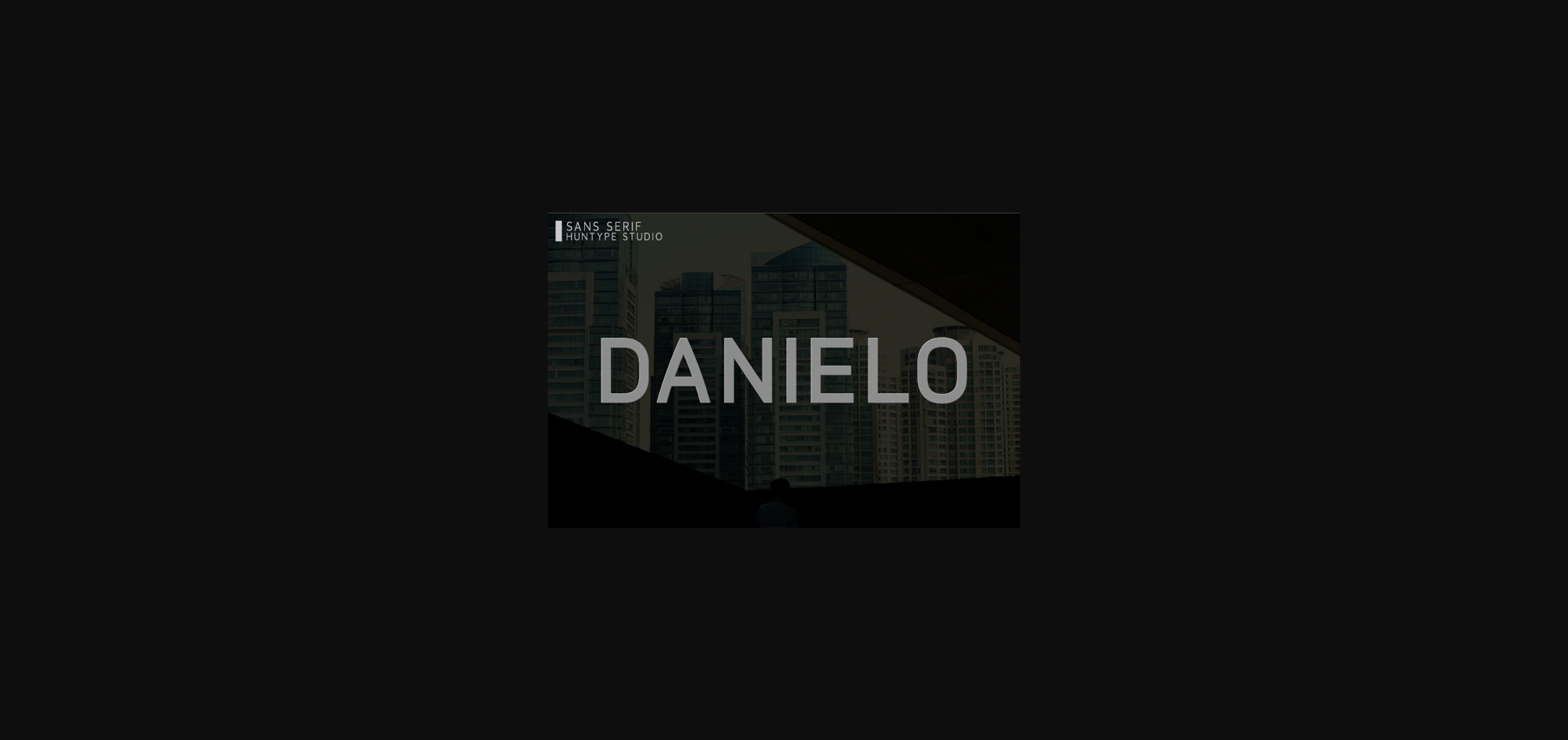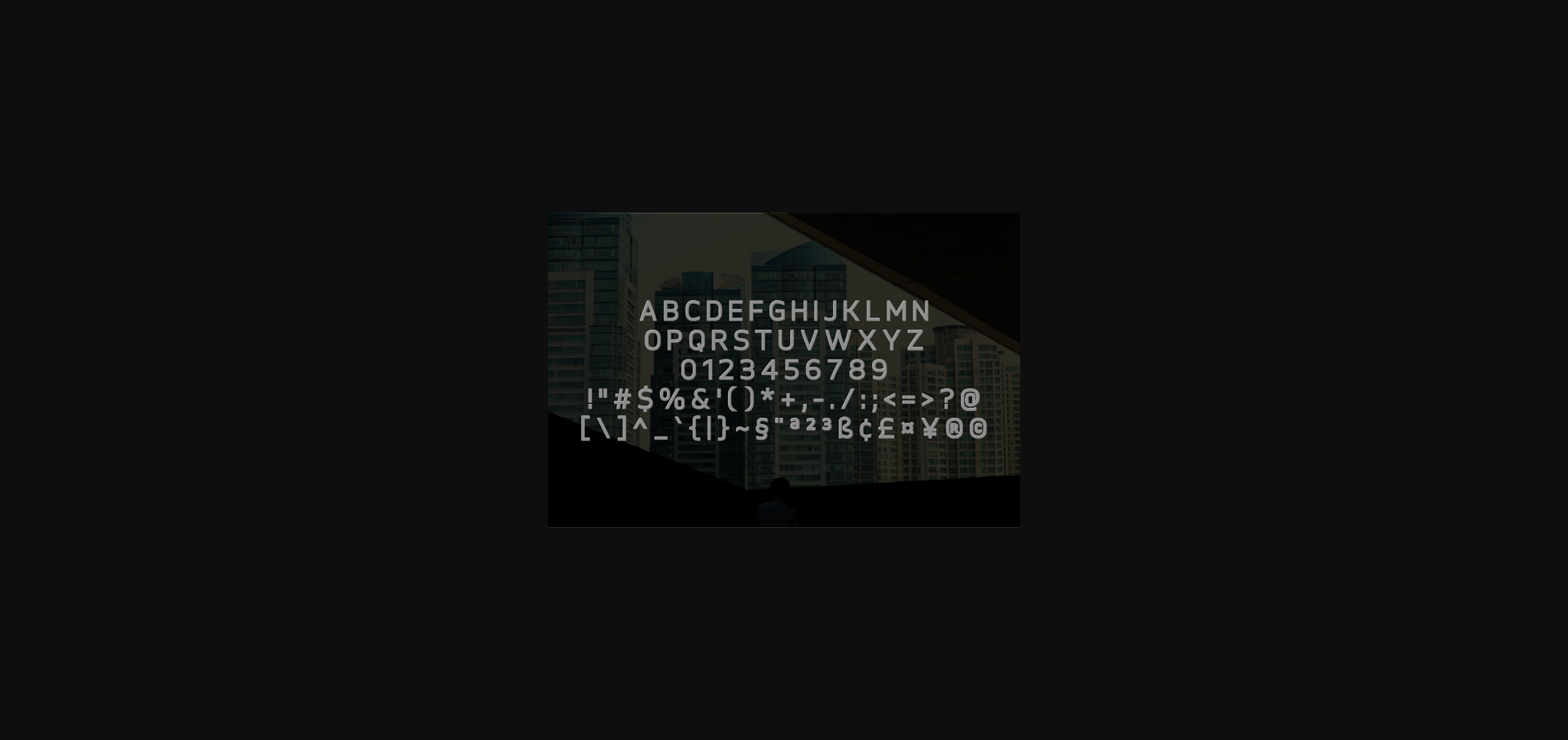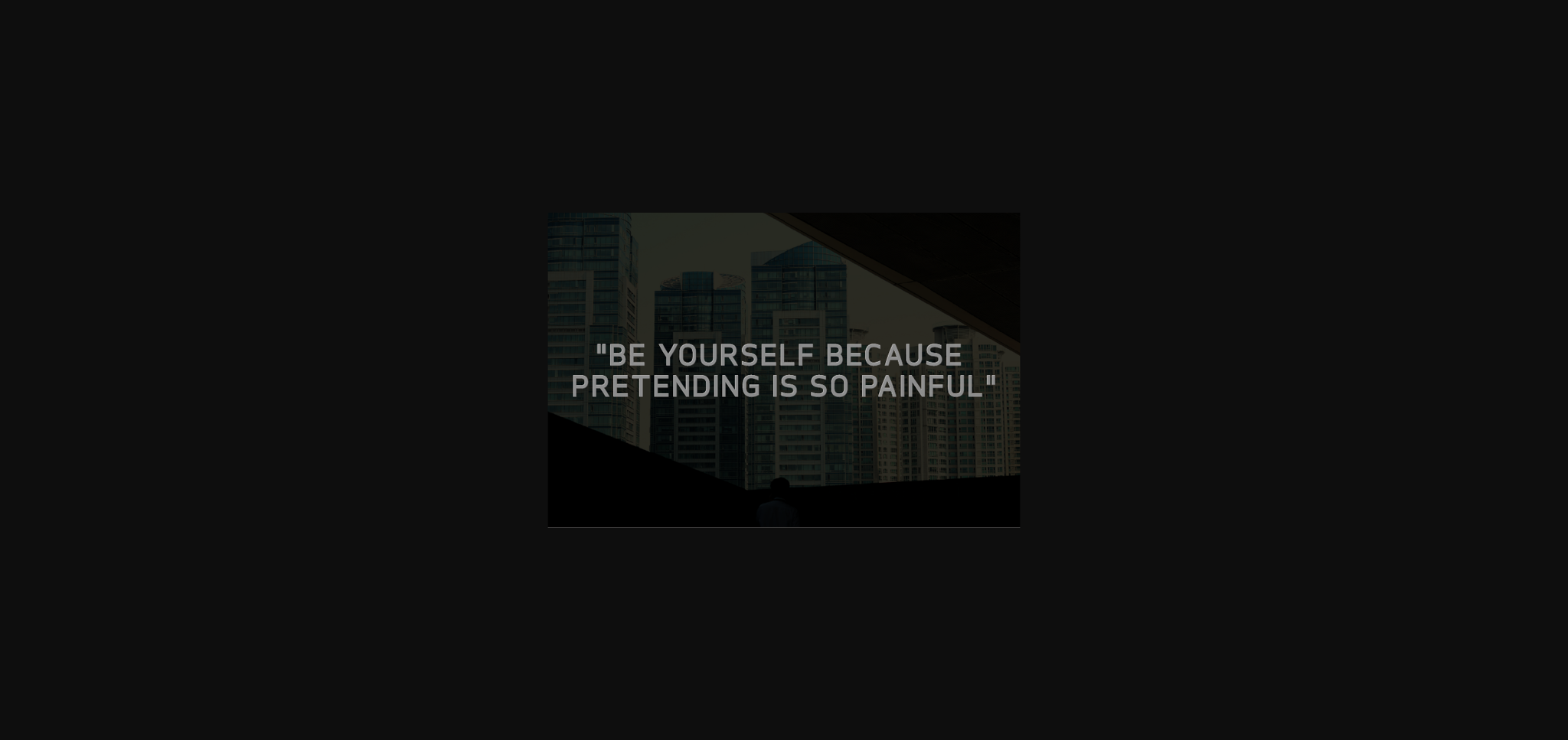
Danielo Font
About Danielo Font
Danielo is a simple and round lettered sans serif font. It can easily be matched to an incredibly large set of projects, so add it to your creative ideas and notice how it makes them stand out!